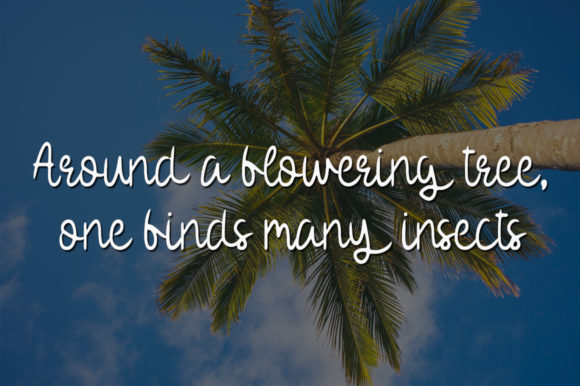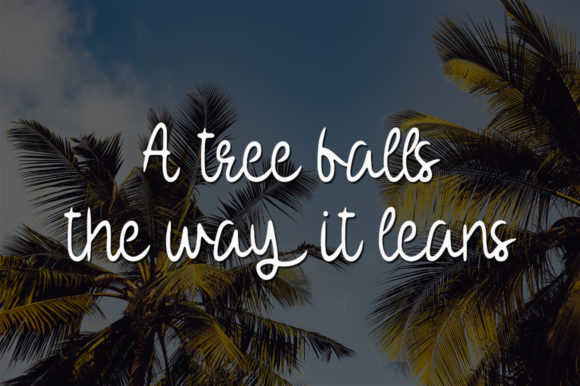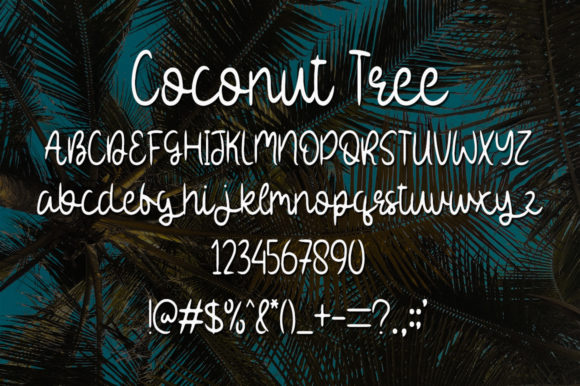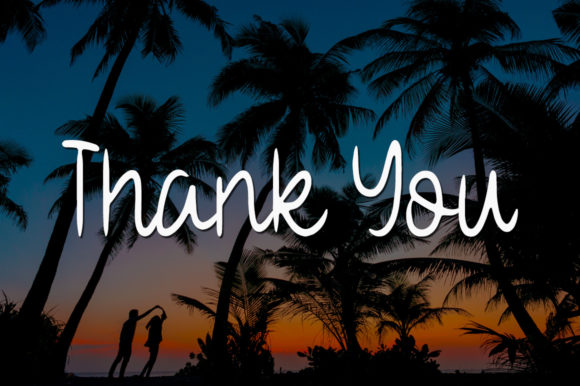
Coconut Tree Font: Add a Touch of Romance to Your Designs
Are you looking for a font that exudes sweetness and delicacy? Look no further than the Coconut Tree font! This beautiful handwritten font is perfect for adding a romantic and personalized touch to your designs. In this article, we’ll dive into the features and benefits of the Coconut Tree font, and explore how you can use it to elevate your creative projects.
What is Coconut Tree Font?
Coconut Tree is a sweet and delicate handwritten font that is sure to capture the hearts of designers and crafters alike. Its dainty and joyful feel makes it an ideal choice for a variety of design applications, from wedding invitations and cards to branding and packaging.
The font’s elegant and flowing script is reminiscent of a summer breeze, evoking feelings of warmth and happiness. Its unique and charming letterforms are sure to add a touch of whimsy and romance to any design.
Features of Coconut Tree Font
- Handwritten script: Coconut Tree font features a beautiful handwritten script that is both elegant and playful.
- Dainty and delicate: The font’s dainty and delicate feel makes it perfect for designs that require a touch of romance and whimsy.
- Joyful and uplifting: The font’s joyful and uplifting feel makes it ideal for designs that need to evoke feelings of happiness and warmth.
- Personalized touch: Coconut Tree font is perfect for adding a personalized touch to your designs, making them stand out from the crowd.
Uses of Coconut Tree Font
Coconut Tree font is a versatile font that can be used in a variety of design applications, including:
- Wedding invitations: The font’s romantic and elegant feel makes it perfect for wedding invitations, save-the-date cards, and other wedding-related designs.
- Cards and stationery: Coconut Tree font is ideal for designing cards, stationery, and other paper crafts that require a personal touch.
- Branding and packaging: The font’s unique and charming letterforms make it a great choice for branding and packaging designs that need to stand out.
- Digital designs: Coconut Tree font can also be used in digital designs, such as social media graphics, blog headers, and website designs.
Tips for Using Coconut Tree Font
Here are some tips for using Coconut Tree font in your designs:
- Pair with contrasting fonts: Pair Coconut Tree font with contrasting fonts to create visual interest and hierarchy in your designs.
- Use in moderation: Use Coconut Tree font in moderation to avoid overwhelming your designs. It works best when used as an accent font or for headings.
- Experiment with colors: Experiment with different colors and textures to add depth and interest to your designs.
- Pay attention to spacing: Pay attention to spacing and kerning to ensure that your text is easy to read and visually appealing.
Coconut Tree font is a beautiful and versatile font that is sure to add a touch of romance and whimsy to your designs. Its delicate and joyful feel makes it perfect for a variety of design applications, from wedding invitations and cards to branding and packaging. With its unique and charming letterforms, Coconut Tree font is sure to become a favorite among designers and crafters alike.